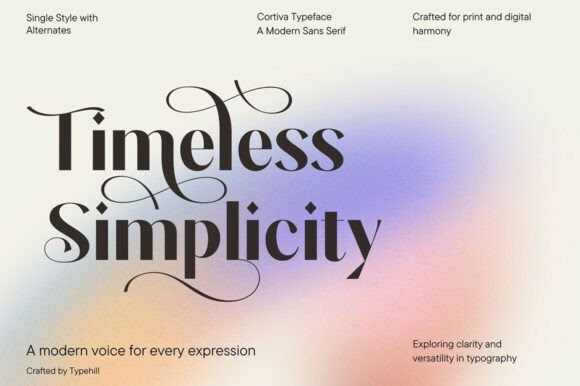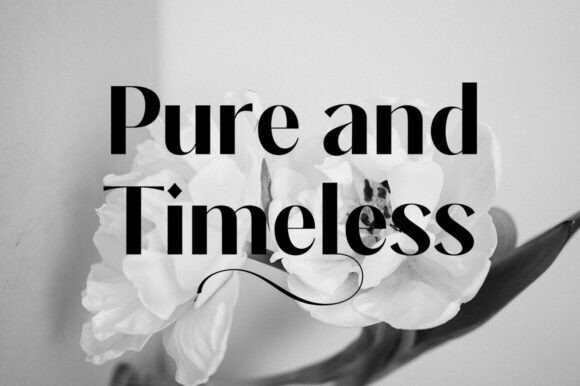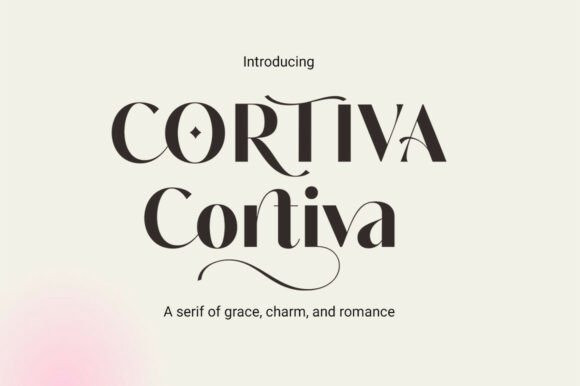
Cortiva Font
Cortiva Font is a refined typeface that blends modern elegance with timeless charm, designed to capture attention through its striking contrasts and graceful details. Its letterforms feature bold strokes paired with delicate curves, creating a balance of strength and sophistication that makes text both powerful and stylish.
Subtle flourishes and sculpted terminals give Cortiva a distinctive personality, while its versatility allows it to adapt seamlessly to branding, editorial layouts, invitations, packaging, and luxury design projects. With its expressive tone and polished aesthetic, the Cortiva font elevates any creative work into a statement of grace, charm, and romance, making it an essential choice for designers who value beauty and functionality in perfect harmony.